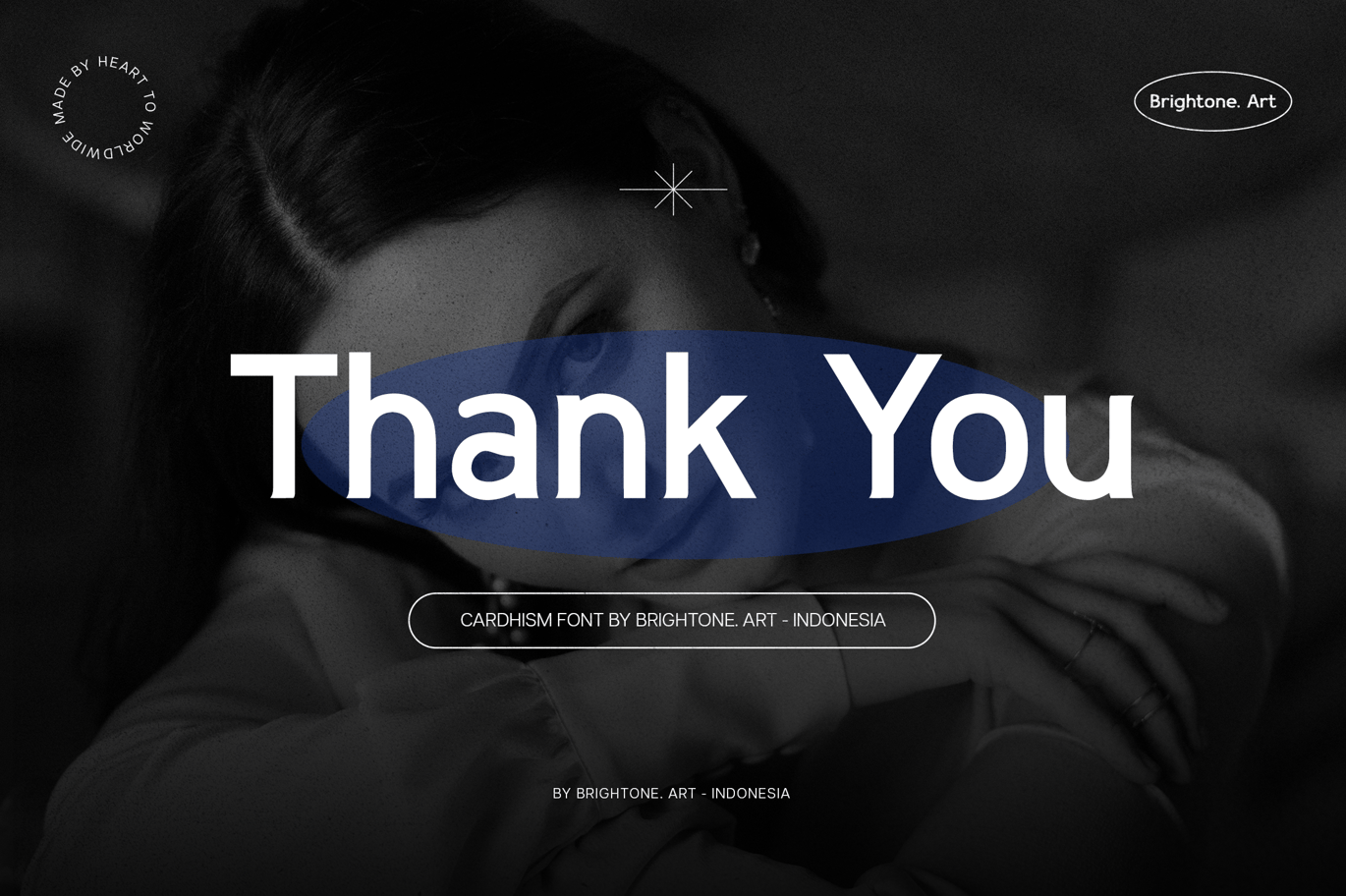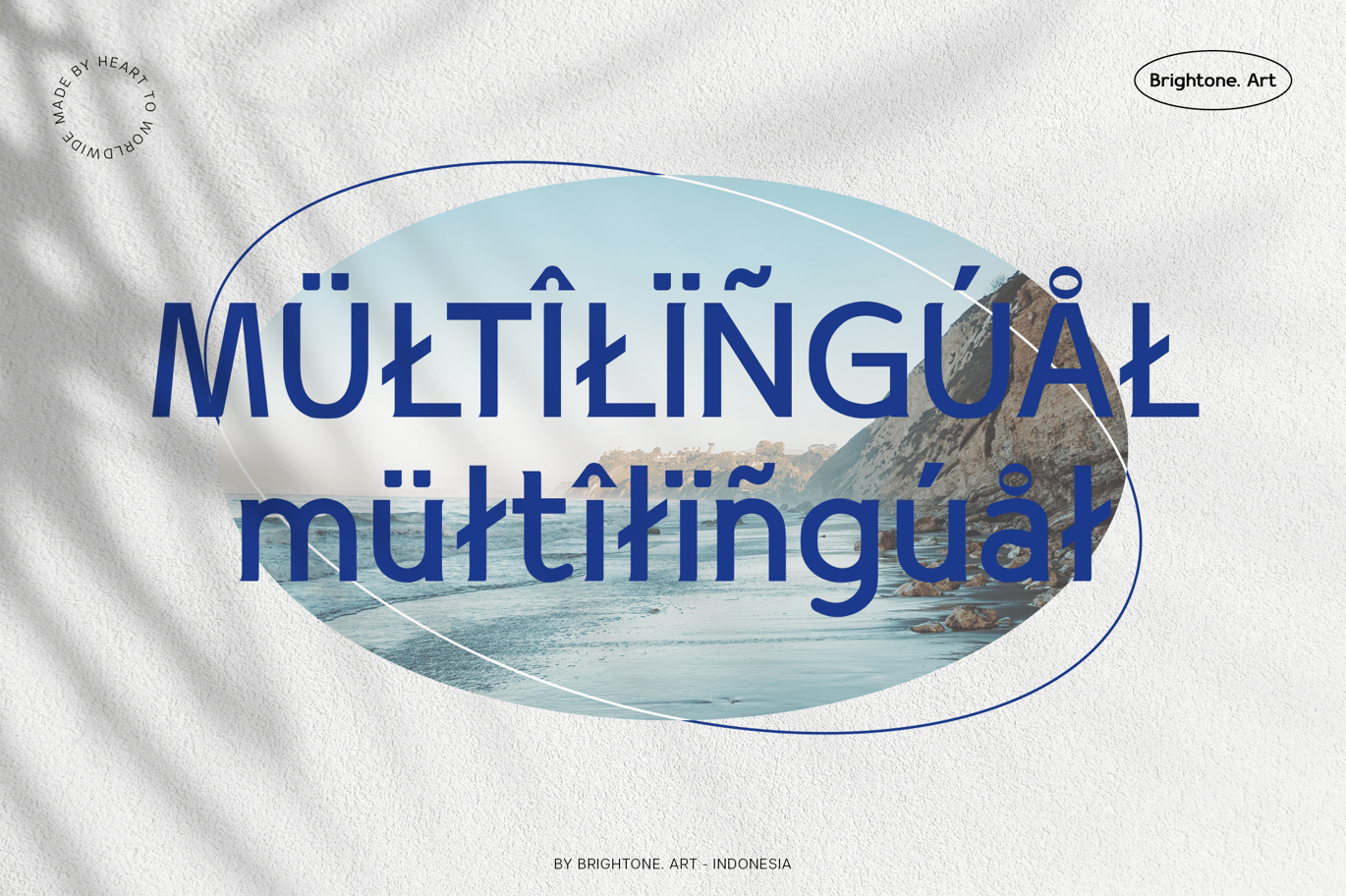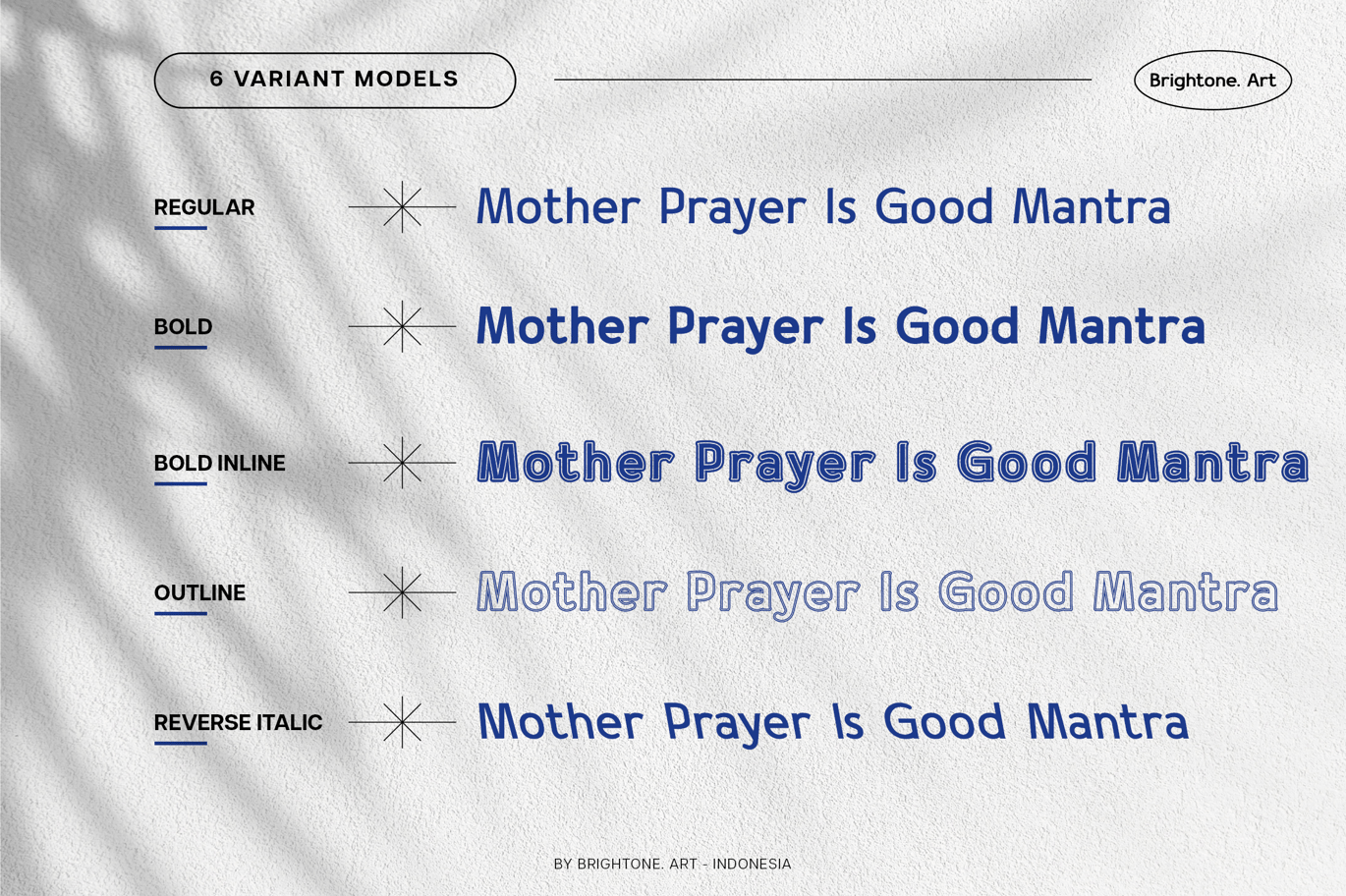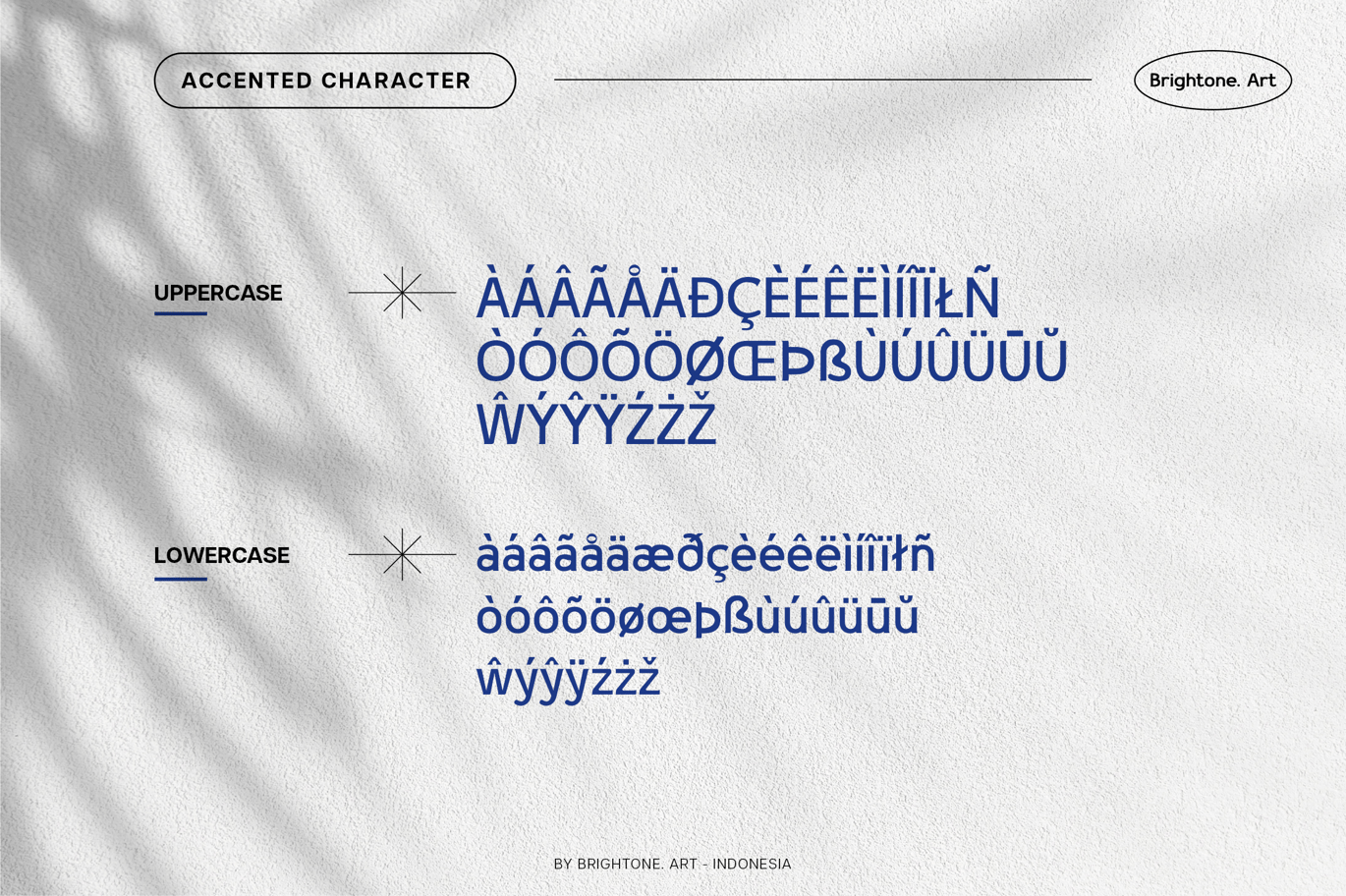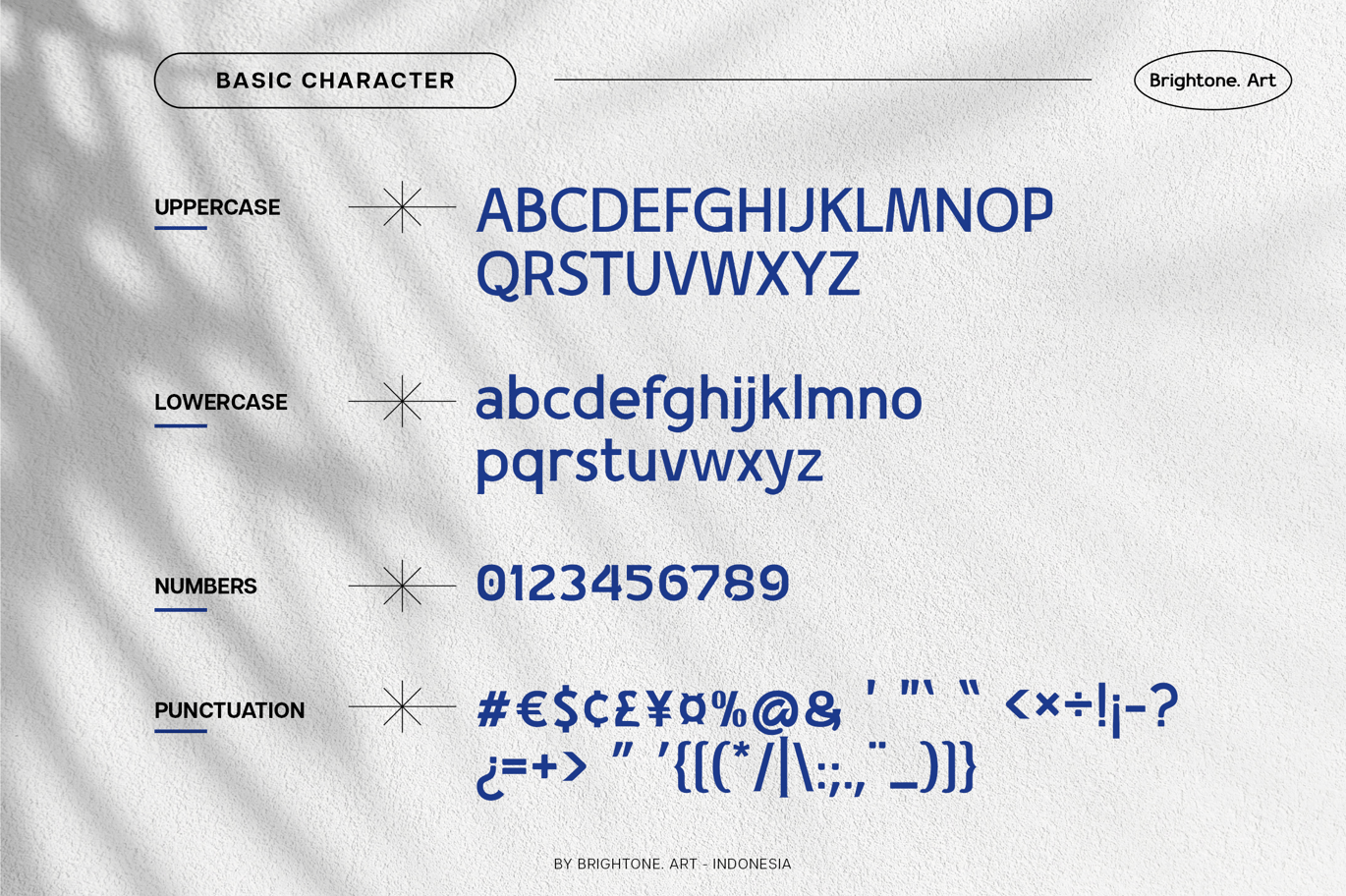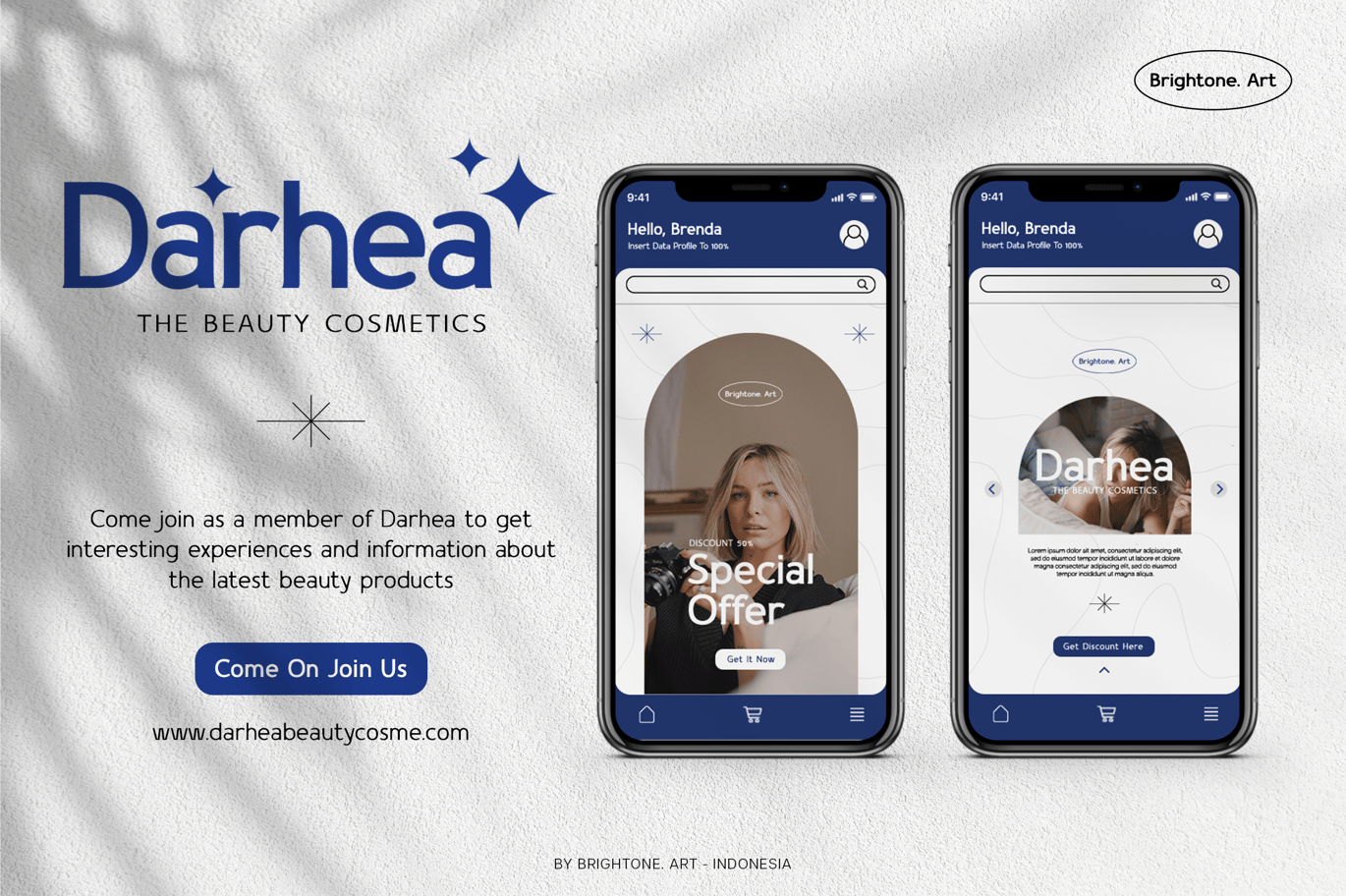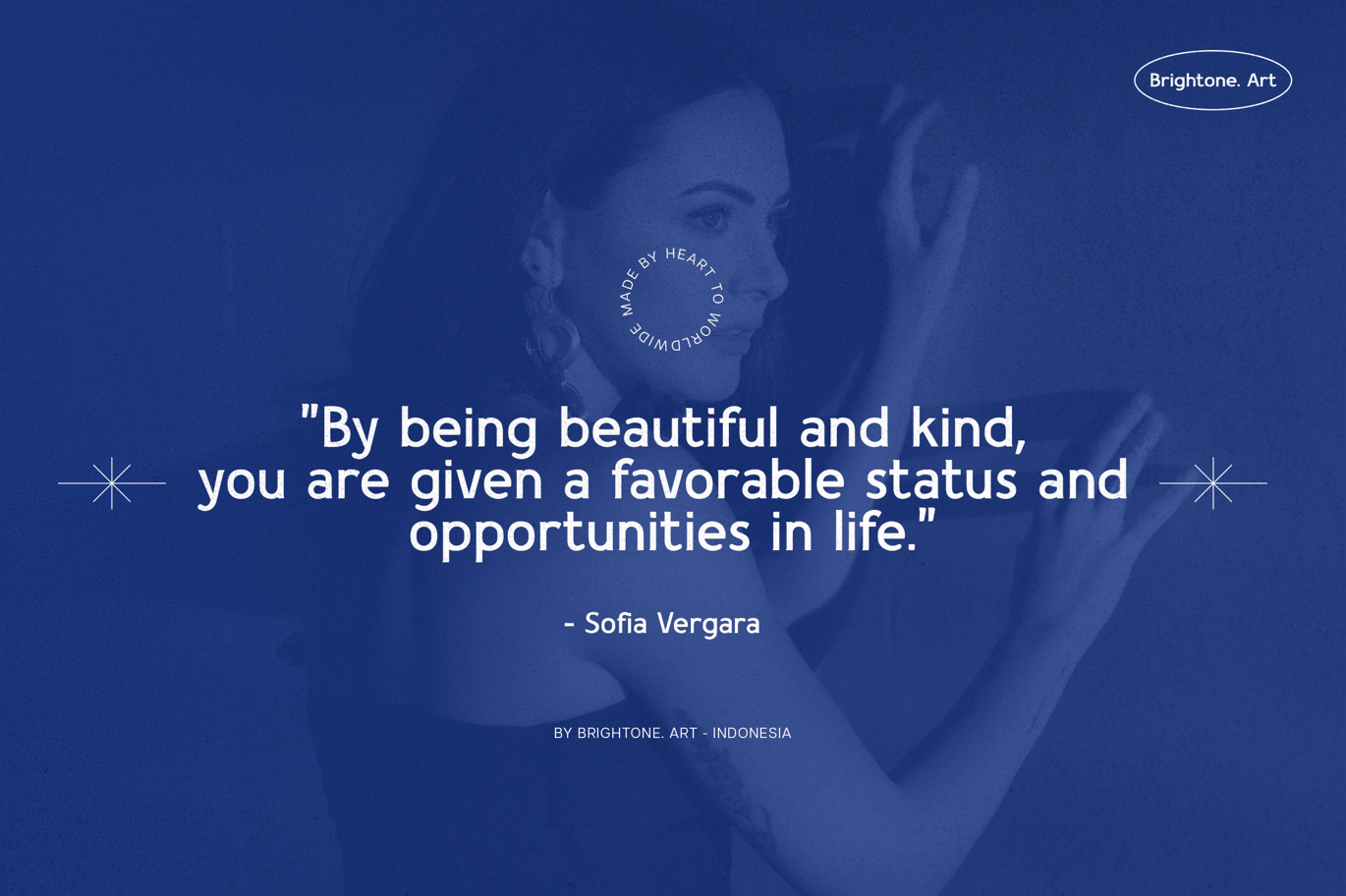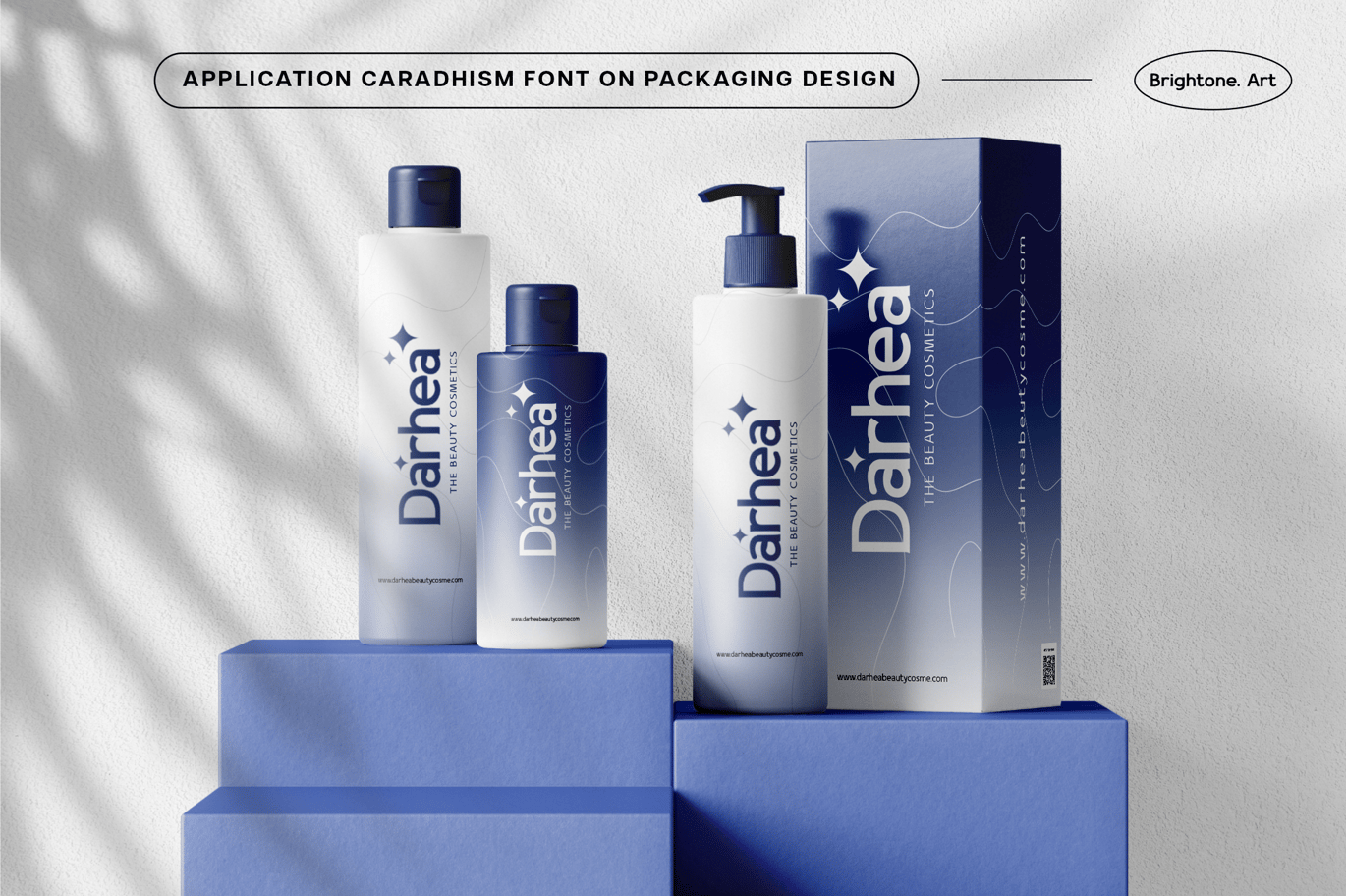
Caradhism – Modern Sans Serif Font
Caradhism
is modern Sans Serif font font with some little glyphic style includes:
- Uppercase and Lowercase characters
- Numbers and Punctuation
- Multilingual Support (Eastern, Central and Western European countries)
Caradhism comes in 6 different styles:
- Caradhism – Regular
- Caradhism – Bold
- Caradhism – Bold Inline
- Caradhism – Outline
- Caradhism – Reverse Italic
- Caradhism – Thin (Extra)
Modern Sans Serif style for your logo lettering, logo, label, packaging, sticker, branding and many more